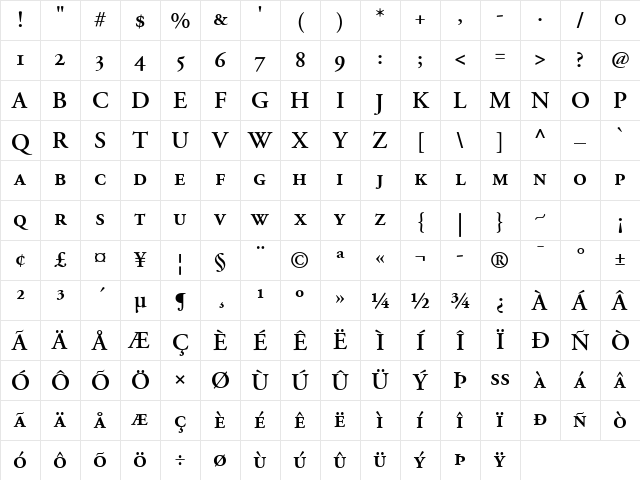
AGaramond RegularSC Bold Free Font
Design Context for AGaramond RegularSC
AGaramond RegularSC is a composed and adaptable typeface that performs quietly and consistently across a wide range of design contexts. Its bold stroke weight gives it real presence on the page.